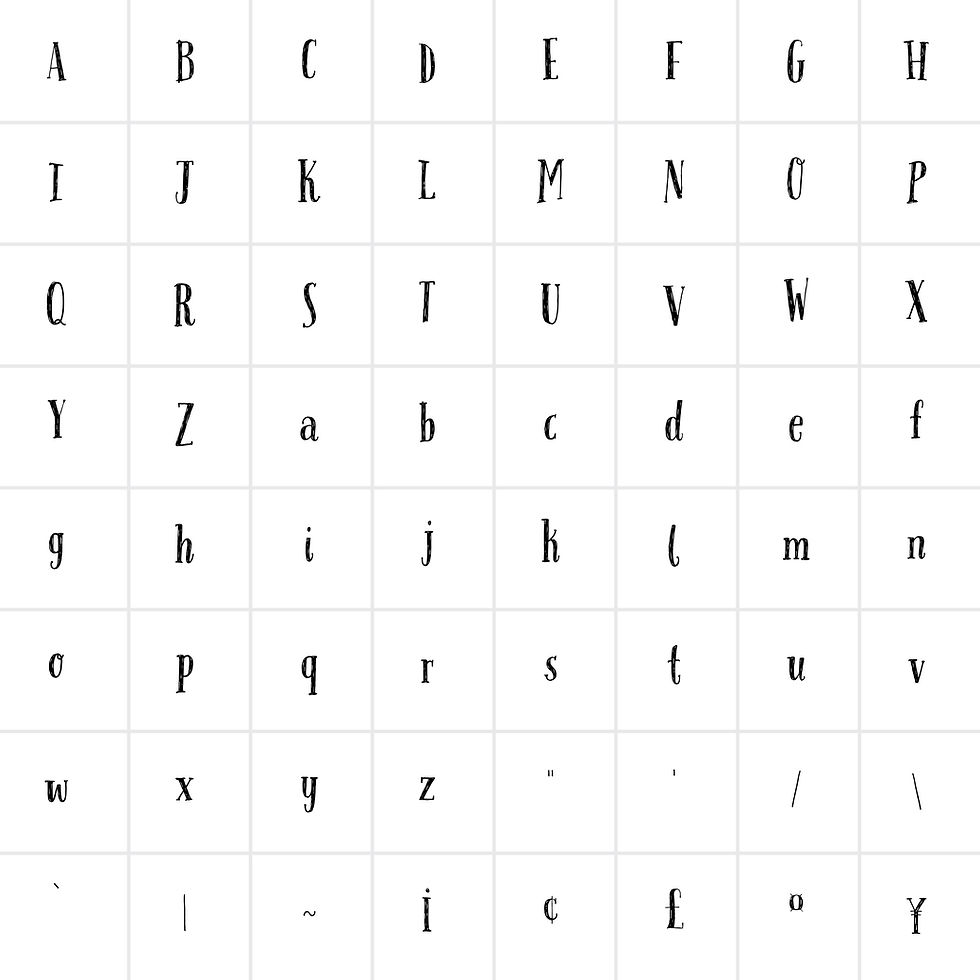
PACIFIC NORTHWEST ROUGH LETTERS FONT is a fun, distressed, hand painted sans serif font. Pacific Northwest Letters comes with latin pro characters.
Pacific Northwest Letters Rough Font